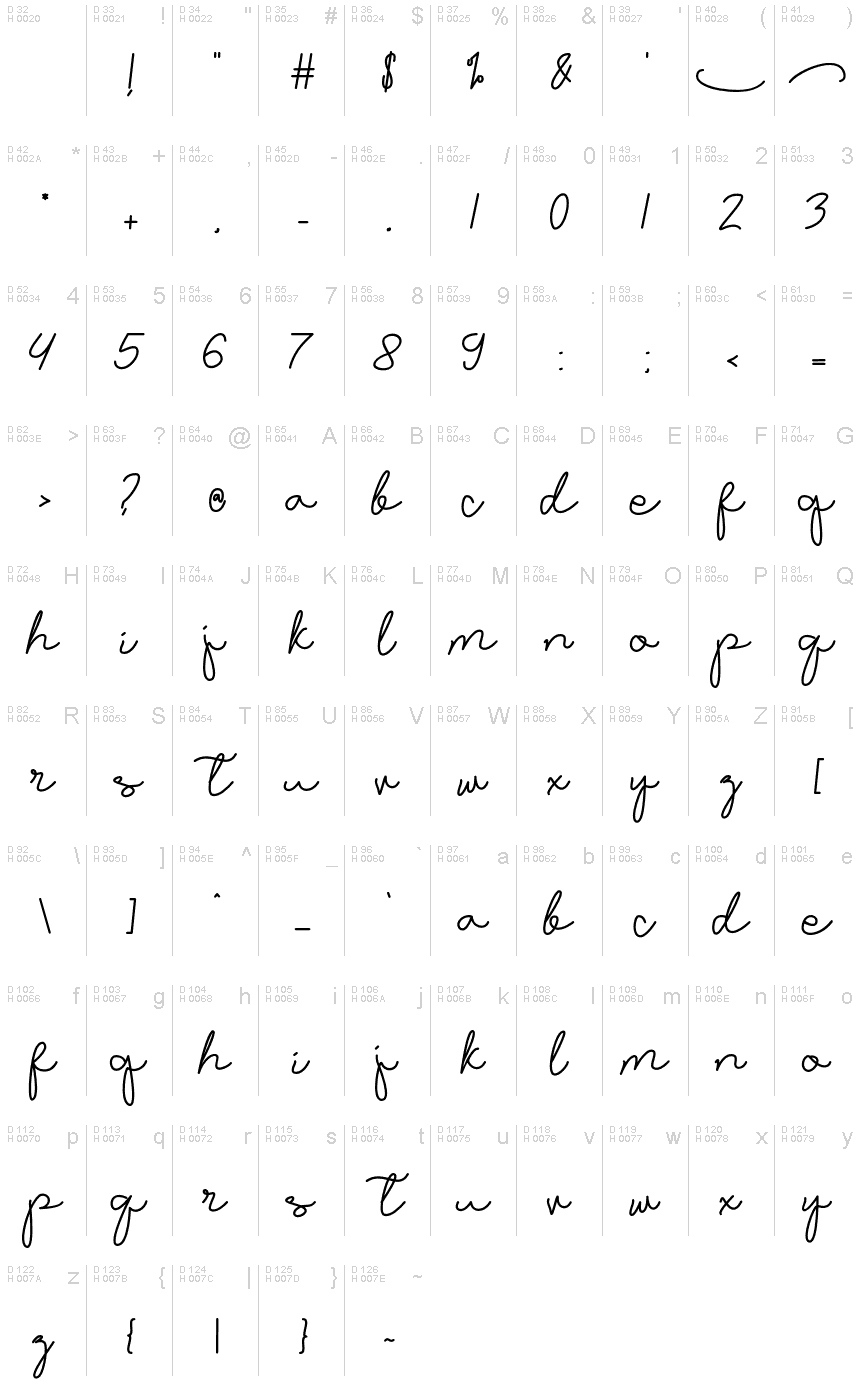
Be at peace
Be at peace, a whimsical and airy casual script font designed by Mozyen Studio, is the perfect choice for projects that require a touch of whimsy and relaxation. Its light weight is ideal for designs that need to exude tranquility and serenity, such as bath and beauty product packaging or meditation apps. This versatile font is also suitable for wedding invitations, greeting cards, blog titles, and social media graphics. With its playful curves and effortless flow, Be at peace adds a distinctive charm to any project it's used in. Enjoy the tranquility this font brings to your design work!